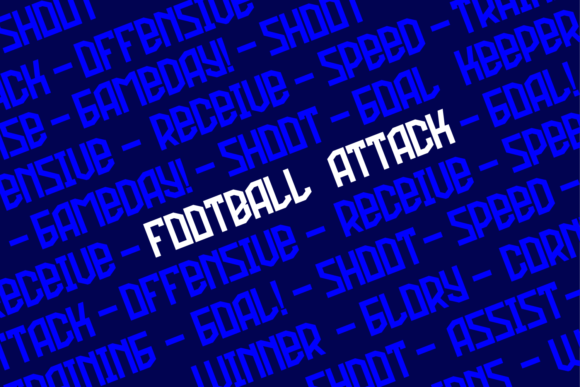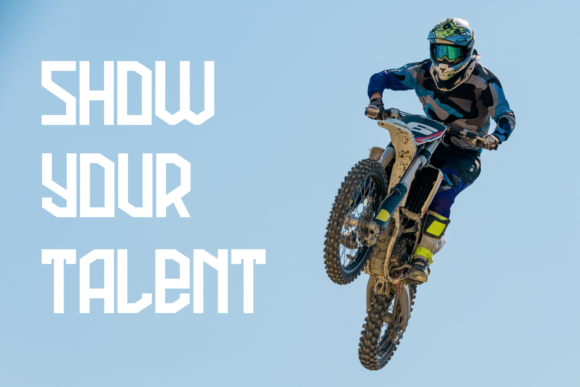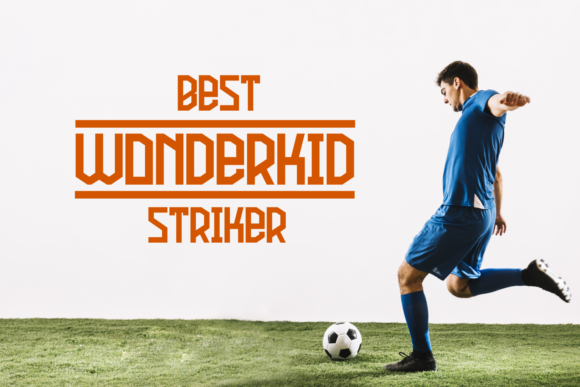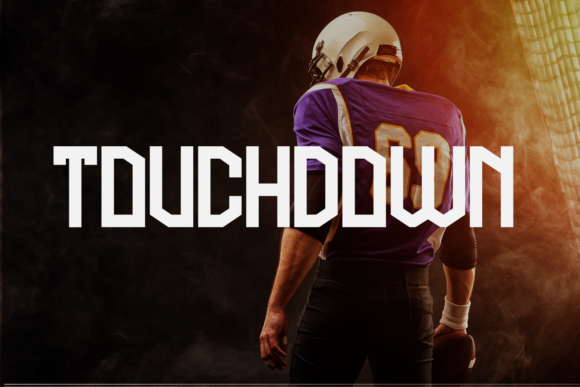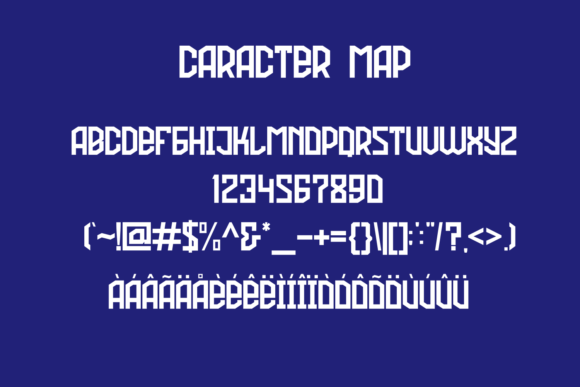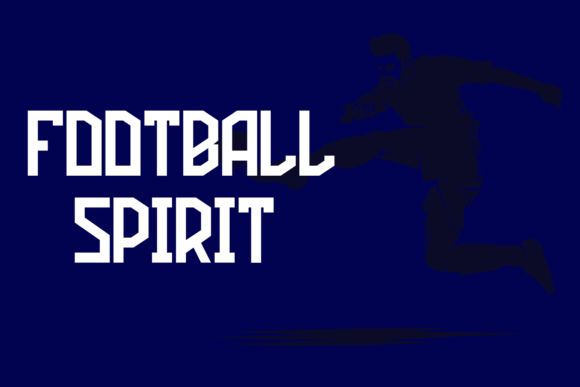
Introduction to Football Attack Font
Football Attack is a sporty and dynamic display font that will add a playful touch to any design idea.
Football Attack is a sporty and dynamic display font that will add a playful touch to any design idea!
Key Features of Football Attack Font